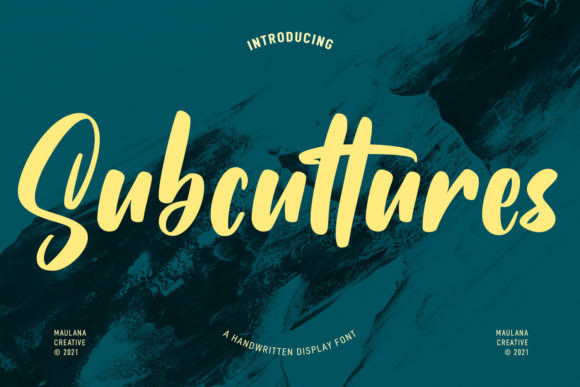
**Unleash the Power of Expression with Subcultures: A Script Font That Embodies Grace and Elegance**
Prepare to be captivated by the allure of Subcultures, an enchanting handwritten font that exudes both delicacy and sophistication. Its meticulously crafted letters dance across the page in perfect harmony, creating a visual symphony that will leave you breathless.
Subcultures is not just a font; it's a gateway to a world of limitless creativity. Its incredibly versatile style empowers you to express yourself in ways you never thought possible. Whether you're crafting heartfelt letters, elegant invitations, or captivating social media posts, Subcultures has the power to elevate your designs to new heights.
Embark on a journey into the world of typography as you explore the boundless possibilities of Subcultures. From the graceful curves of its lowercase letters to the commanding presence of its uppercase characters, every detail has been thoughtfully designed to evoke a sense of beauty and sophistication.
Step into the realm of legal documentation and watch as Subcultures transforms your words into works of art. Its distinct style lends an air of authority to legal letters, contracts, and other formal documents, ensuring that your message is conveyed with both clarity and gravitas.
Immerse yourself in the world of design with Subcultures by your side. Its versatility knows no bounds, effortlessly complementing a wide range of creative projects. Use it to create stunning logos, eye-catching posters, or heartfelt greeting cards that will leave a lasting impression.
Subcultures is more than just a font; it's an extension of your imagination. Its delicate strokes and elegant curves will ignite your creativity, allowing you to express yourself with a touch of undeniable grace.
Fall in love with the allure of Subcultures today and unlock the boundless possibilities of expression. Let its enchanting handwritten style guide you on a journey of creativity and inspiration.